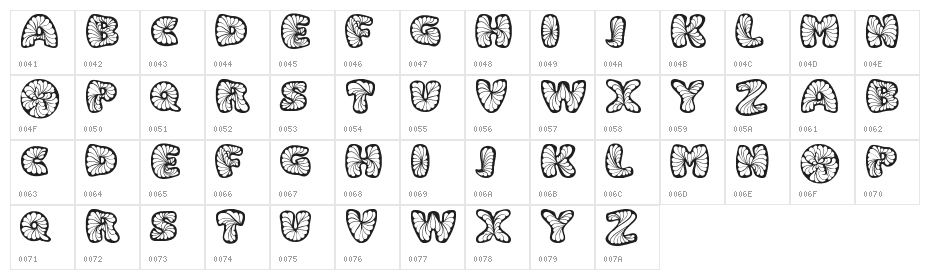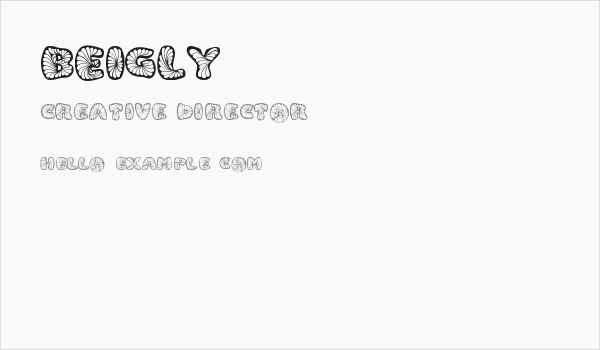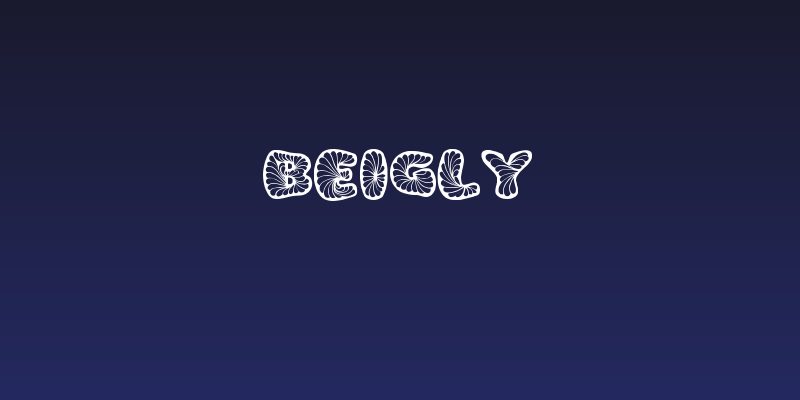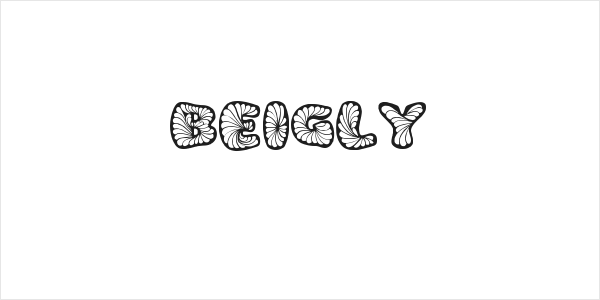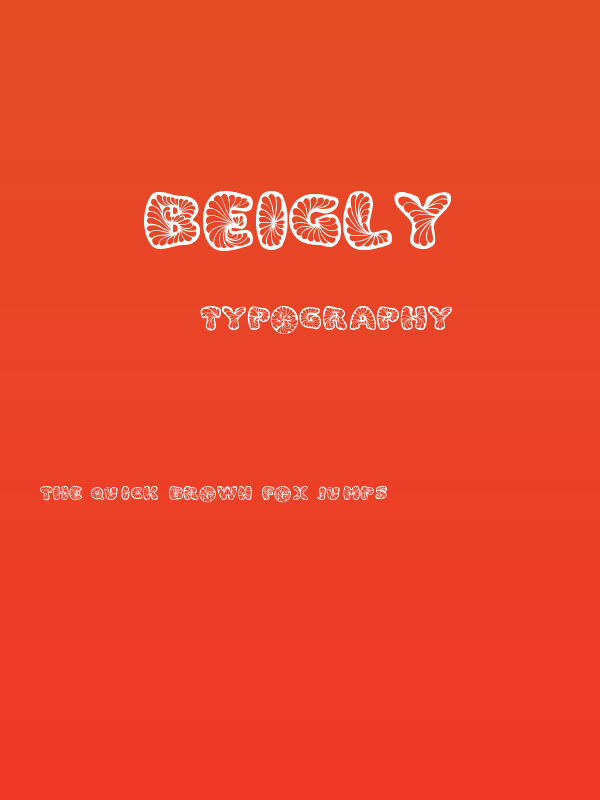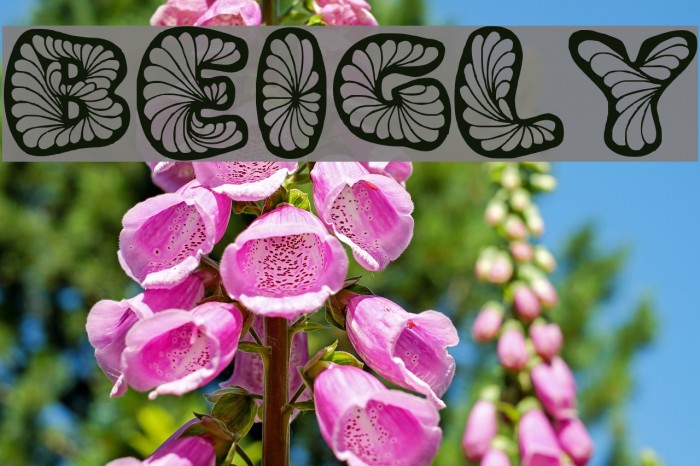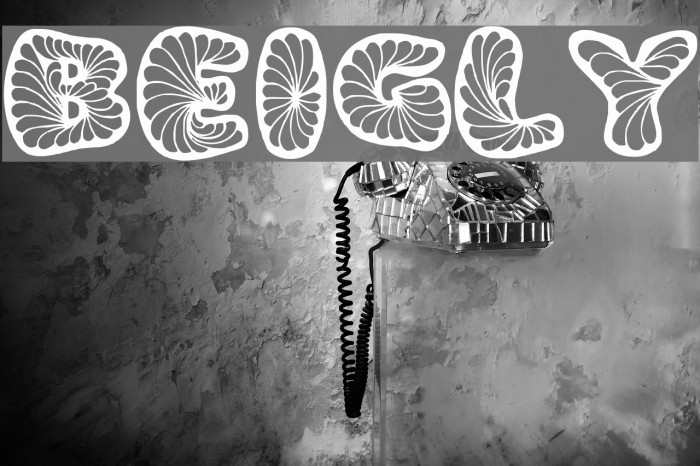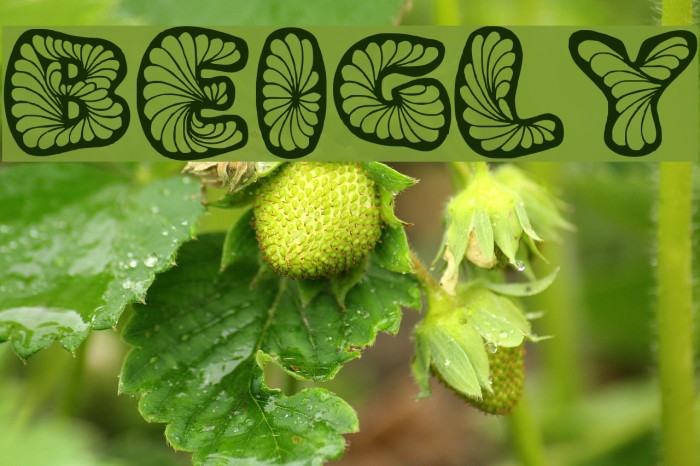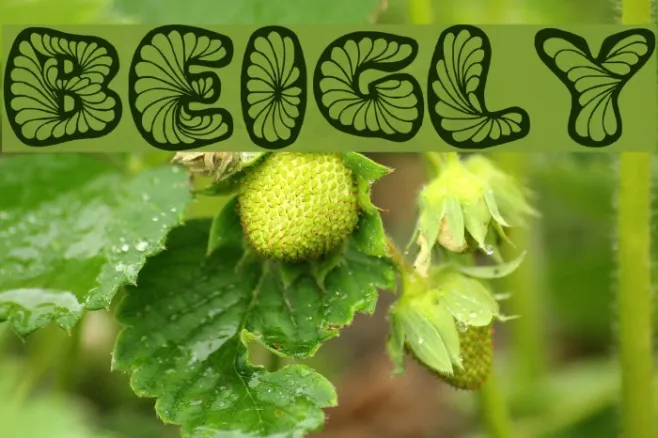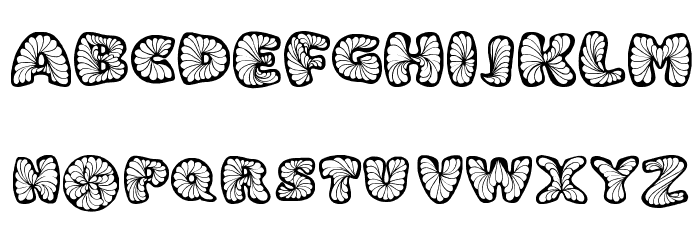
Beigly Font
Beigly Description
This font features a playful and decorative style, with each character adorned with intricate, swirling patterns reminiscent of floral or organic motifs. The bold, rounded shapes of the letters are filled with detailed line work, creating a sense of depth and texture. The overall appearance is whimsical and eye-catching, making it ideal for projects that require a touch of creativity and fun. The font maintains a consistent pattern throughout, ensuring visual harmony across all characters.
| Proposed Projects | Ideal for children's book covers, playful posters, creative branding, and artistic invitations. |